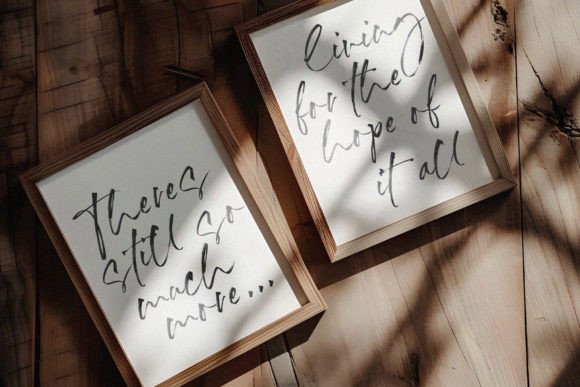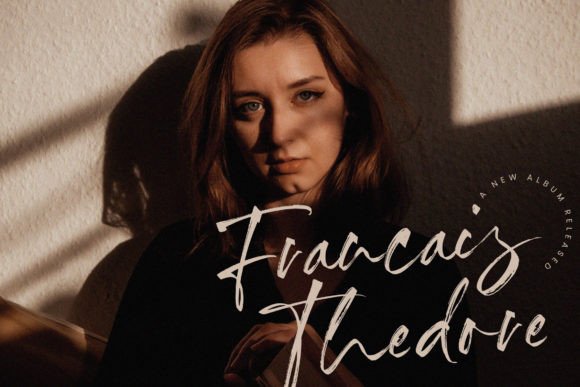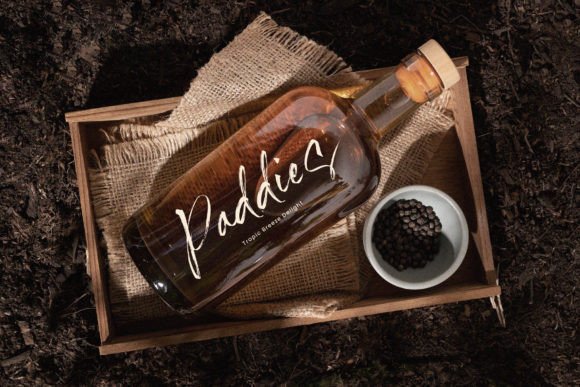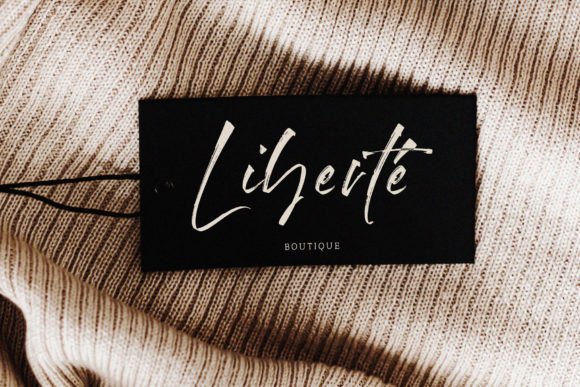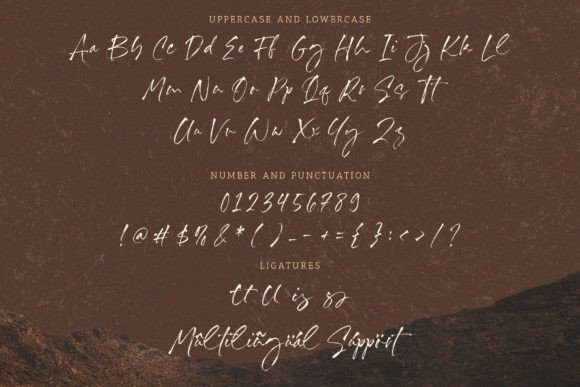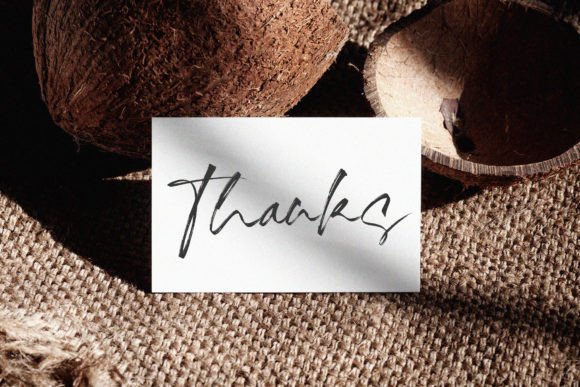
Introduction to King Artemis Font Font
Fonts play a crucial role in design, and the King Artemis Font font is a typeface that brings both character and versatility to any project. Whether you’re working on a branding project, a website, or a print design, the King Artemis Font font offers a unique style that can elevate your work.
King Artemis is a captivating handbrushed script font that exudes regal elegance and artistic flair.
With its graceful strokes and flowing curves, each letter is crafted to evoke a sense of royalty and sophistication Perfectly balancing tradition with modernity, βKing Artemisβ is designed for those who seek to add a touch of majestic charm to their projects, whether in branding, invitations, or decorative elements.
Key Features of King Artemis Font Font
Why Choose King Artemis Font Font?
The King Artemis Font font is more than just a typeface β it’s a design tool that helps you communicate your message with style and clarity. Its unique character set and versatile design make it suitable for a wide range of applications, from elegant invitations to bold headlines.
With its carefully crafted letterforms and balanced proportions, the King Artemis Font font ensures readability and visual appeal across all mediums.
What makes King Artemis Font font special?
The King Artemis Font font stands out with its unique design, exceptional readability, and versatility across various design applications.